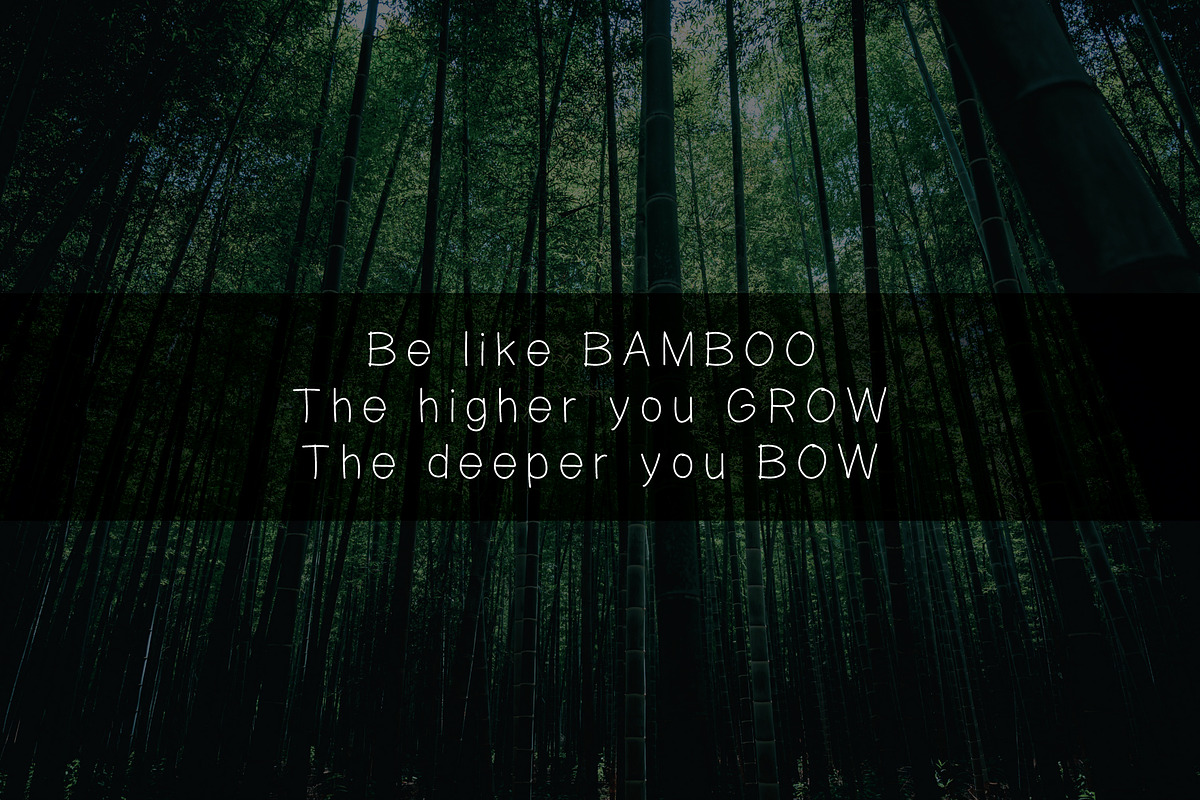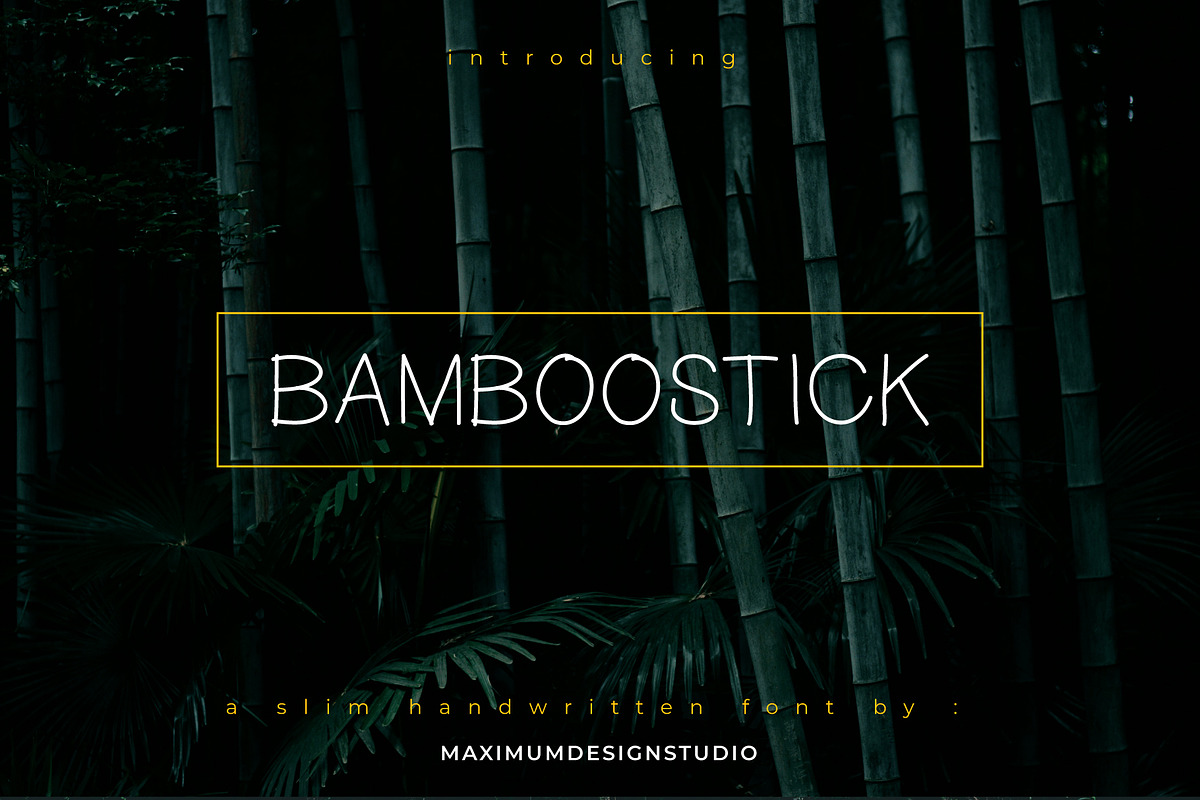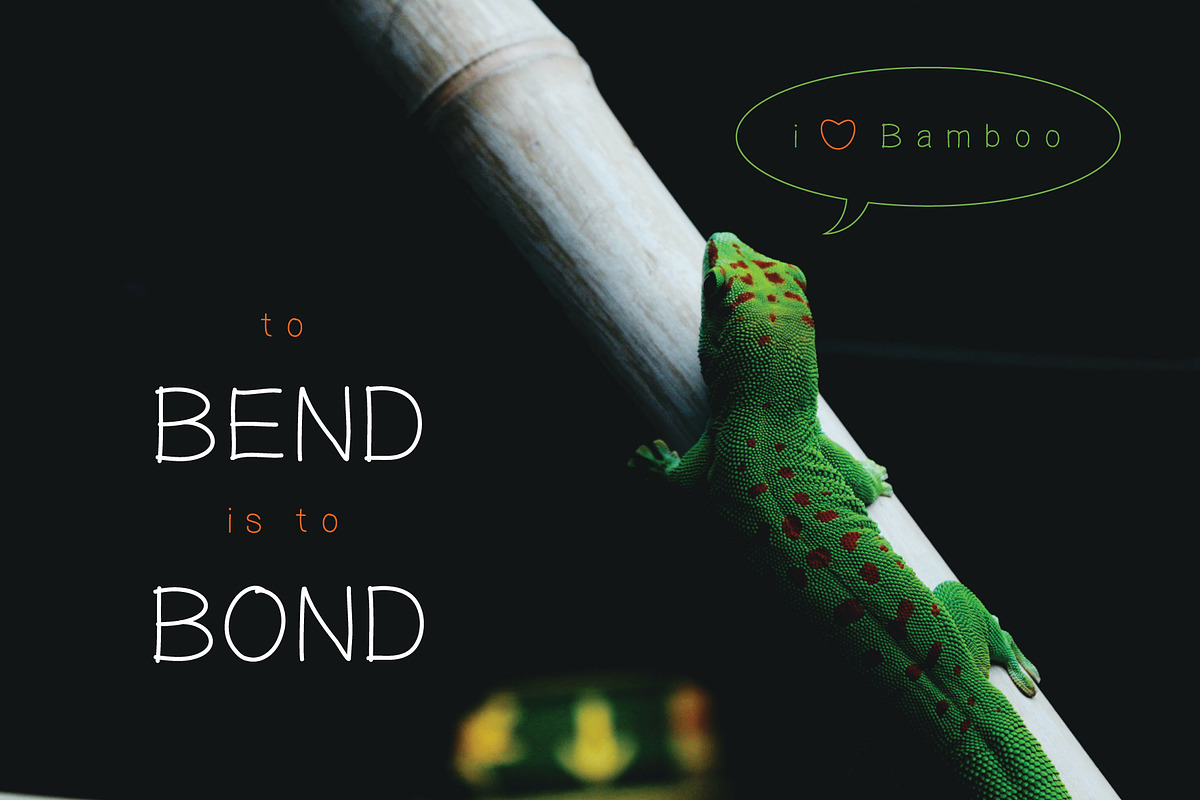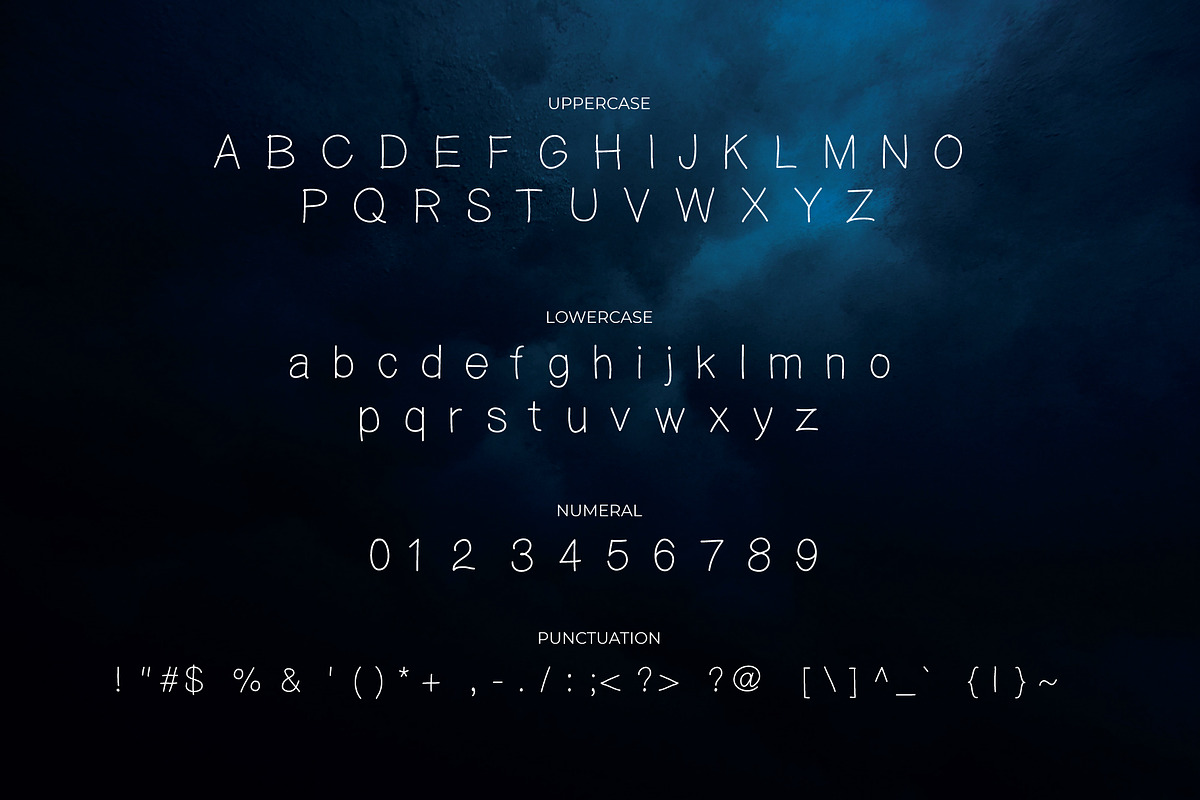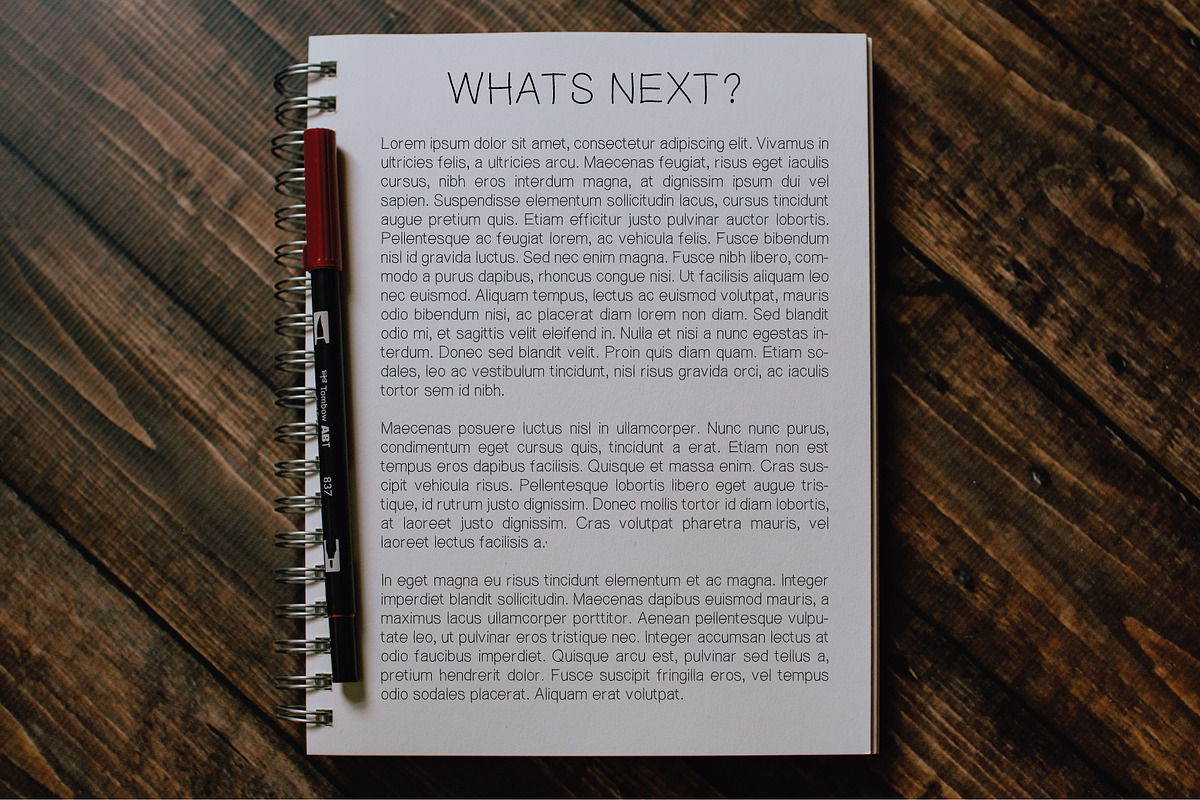
Bamboostick a Handwritten Font
Bamboostick is a simple but playful handwritten font.
It comes with uppercase, lowercase, numerals and minimal punctuations. This font can always be the right choice for a lot of creative work and perfect for epublishing, ebooks, children’s books and everything whimsy.